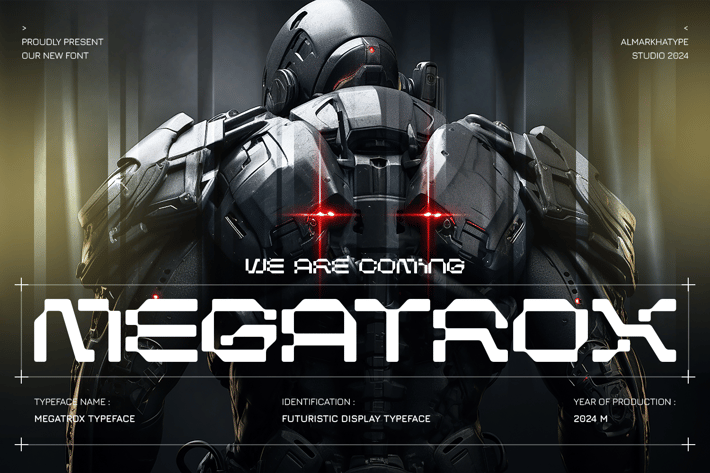
Megatrox – Mecha Font
Megatrox a meticulously crafted font inspired by mecha, rounded-edge technology, the future, crypto culture, and cyber aesthetics. This font is designed to stand out, offering a sleek and modern appearance with a futuristic edge, making it perfect for blockchain websites, apps, and beyond.
Megatrox shines in logos, headlines, and branding materials. Its all-caps style features uppercase and lowercase letters of the same size but with unique variations, allowing you to mix and match effortlessly for the ideal design.
With its bold and robust character, Megatrox is an excellent choice for projects demanding a powerful and futuristic vibe, such as video game titles, movie posters, product packaging, or eye-catching promotional materials.
+ Ligatures glyphs
+ Alternate glyphs
+ International Accent